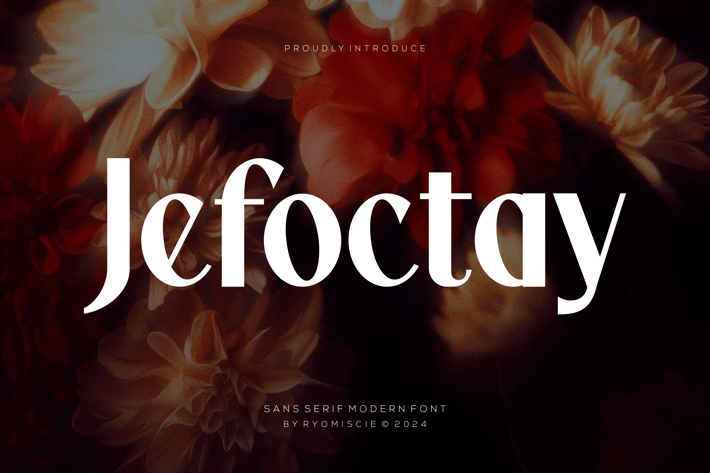
Jefoctay - Sans Serif Modern Font
Introducing our new product Jefoctay Font - Sans Serif Modern Font
Jefoctay Font - Sans Serif Modern Font is a bold and authentic display font.
The font is suitable for any branding project like logo,
t-shirt printing, esport, and many more. outstanding in a wide range of contexts.